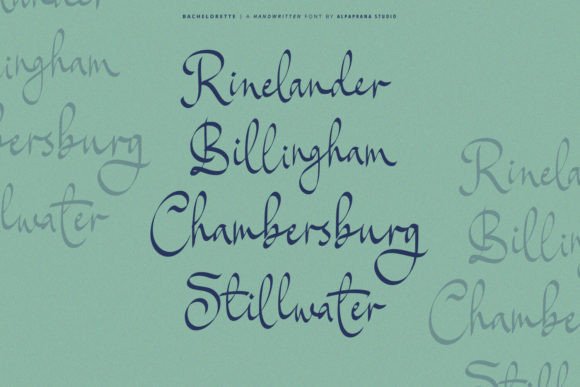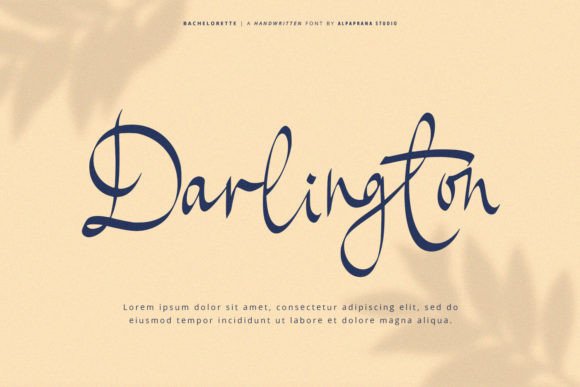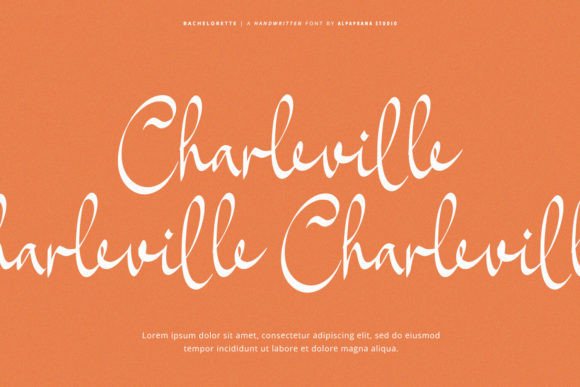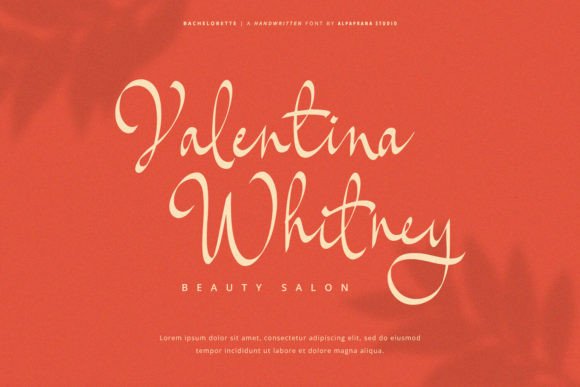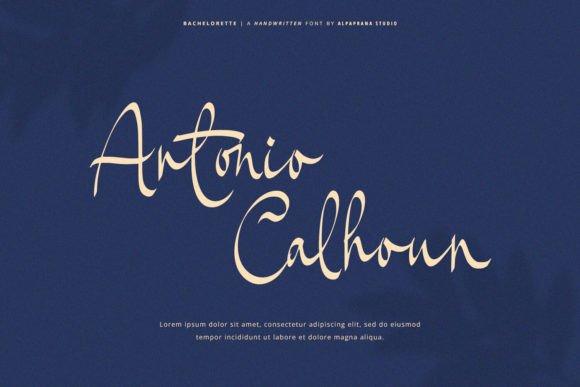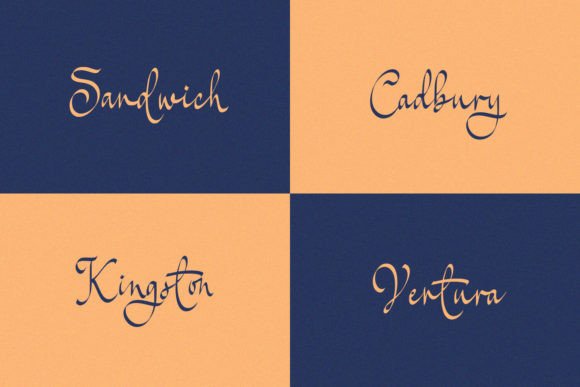
Bachelorette Font: Elevate Your Designs with a Touch of Elegance
In the world of typography, fonts play a crucial role in conveying the tone and personality of a brand or design project. For designers and crafters seeking a unique and captivating font, Bachelorette Font is an excellent choice. This handwritten font boasts a natural and modern feel, making it perfect for a wide range of applications, from branding and logo design to packaging and special events.
The Charm of Bachelorette Font
Bachelorette Font is a beautifully crafted handwritten font that exudes elegance and sophistication. Its natural and modern feel makes it an ideal choice for designers looking to add a personal touch to their projects. The font’s unique characteristics, such as its flowing lines and subtle imperfections, give it a humanized feel that sets it apart from more traditional fonts.
One of the standout features of Bachelorette Font is its versatility. This font can be used for a wide range of design projects, including:
- Branding: Create a lasting impression with a custom logo or typography that reflects your brand’s personality.
- Logo Design: Design a unique and memorable logo that sets your brand apart.
- Lettering: Add a personal touch to your lettering projects with a font that feels like it was written by hand.
- Logotype: Create a stunning logotype that showcases your brand’s name in a beautiful and elegant way.
- Clothing: Add a touch of elegance to your clothing designs, from t-shirts to dresses.
- Posters: Create eye-catching posters that grab attention and leave a lasting impression.
- Magazines: Use Bachelorette Font to add a touch of sophistication to your magazine designs.
- Packaging: Elevate your packaging designs with a font that feels premium and high-end.
- Shopping Bags: Create reusable shopping bags that make a statement.
- T-Shirts: Design custom t-shirts that showcase your brand’s personality.
- Book Covers: Create stunning book covers that capture the essence of the story.
- Photography: Use Bachelorette Font to add a touch of elegance to your photography projects.
- Special Events: Create memorable event branding, invitations, and signage with a font that feels special and unique.
Why Choose Bachelorette Font?
So, why should designers and crafters choose Bachelorette Font for their projects? Here are just a few reasons:
- Unique and Handwritten: Bachelorette Font is a one-of-a-kind handwritten font that adds a personal touch to any design project.
- Natural and Modern Feel: The font’s natural and modern feel makes it perfect for a wide range of design applications.
- Highly Versatile: Bachelorette Font can be used for everything from branding and logo design to packaging and special events.
- Elegant and Sophisticated: The font’s elegant and sophisticated feel makes it perfect for designers looking to create high-end designs.
Tips for Using Bachelorette Font
To get the most out of Bachelorette Font, here are a few tips to keep in mind:
- Experiment with Different Sizes: Bachelorette Font looks great in a variety of sizes, from large headings to smaller body text.
- Play with Colors: The font looks great in a range of colors, from bold and bright to soft and pastel.
- Mix and Match with Other Fonts: Bachelorette Font pairs well with a range of other fonts, so don’t be afraid to experiment with different combinations.
- Use it for Headings and Titles: The font’s elegant and sophisticated feel makes it perfect for headings and titles.
In conclusion, Bachelorette Font is a beautiful and versatile handwritten font that is perfect for designers and crafters looking to add a touch of elegance to their projects. With its natural and modern feel, high level of versatility, and elegant and sophisticated characteristics, this font is sure to become a favorite in any designer’s toolkit. Whether you’re working on a branding project, designing a logo, or creating packaging, Bachelorette Font is an excellent choice.